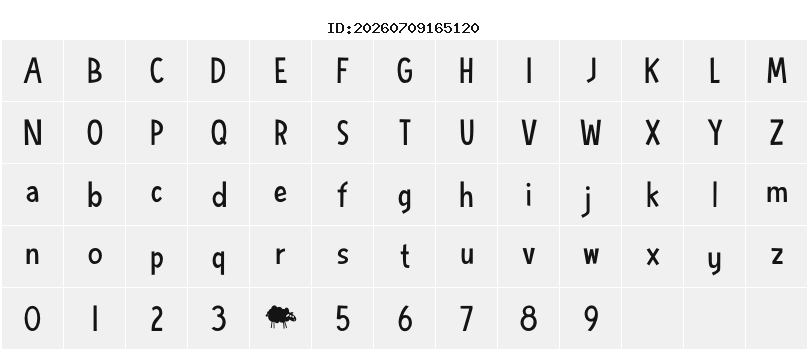
DK Blue Sheep Preview
• Font Name: DK Blue Sheep
• Designer: David Kerkhoff
About DK Blue Sheep.otf
DK Blue Sheep.otf is a modern, elegant sans-serif font designed for ultimate readability and visual harmony. Perfect for branding, headlines, web design, and print materials.